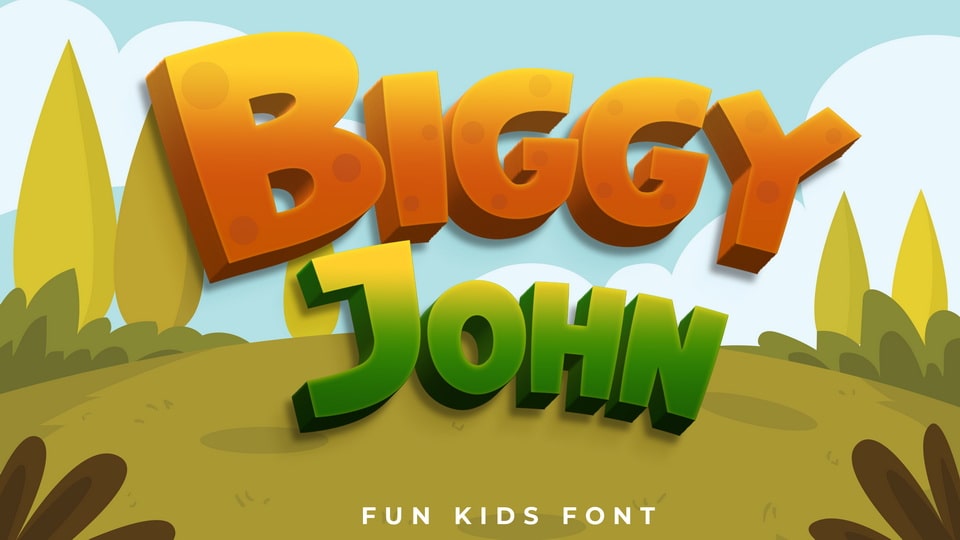
Download Biggy John font, a playful and captivating cartoon typeface perfect for captivating your young audience! With its comic font style and cute, funny, and modern design, Biggy John is the perfect choice for anyone looking to inject some personality into their project.